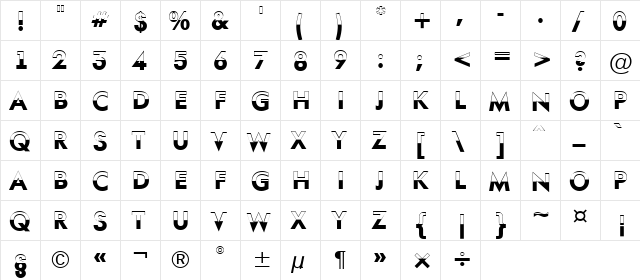
a_FuturaOrtoTitulB&W Bold
Design Context for a_FuturaOrtoTitulB&W Typeface
a_FuturaOrtoTitulB&W channels digital-age aesthetics through its sharp, structured letterforms — ideal for brands that want to signal innovation. The heavy weight commands attention and anchors typographic hierarchies.
Pro Tip: Try a_FuturaOrtoTitulB&W with generous letter-spacing in UI labels and navigation — the geometric forms benefit from room to breathe.